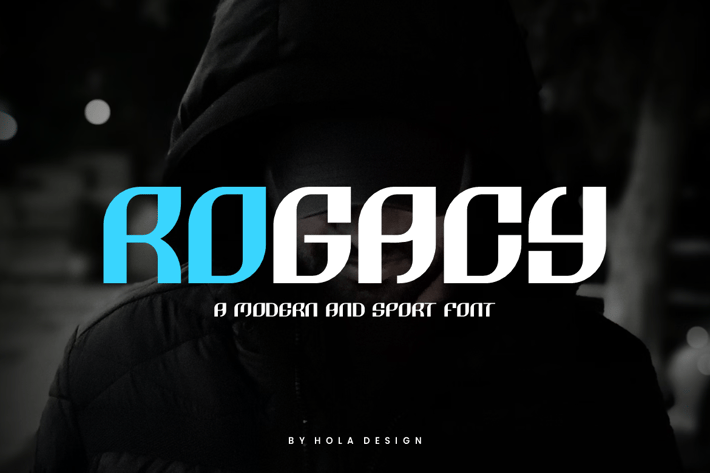
Rogacy Modern Sport Font
Rogacy Modern Sport Font Font is unique . Ready to use for your design like labeling, movie sceen, poster, movie title, gigs, album covers, logos, and much more.